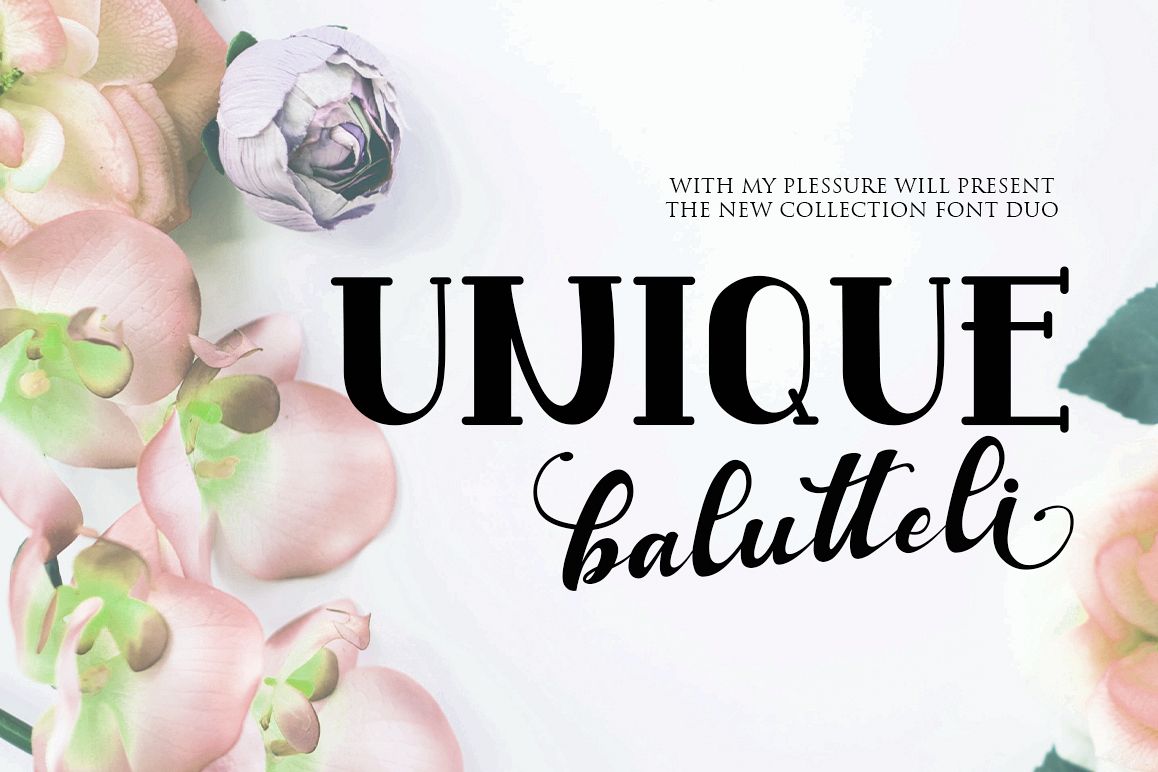
Antique Balutteli Font Duo
Balutteli Serif
I will introducing my new font collection with the name "ANTIQUE BALUTTELI"
"ANTIQUE
BALUTTELI"
is  font duo which consists of script and serif which each
of these fonts has unique characteristics. You will see perfect when these fonts are combined.
- Balutteli Script
- Balutteli Serif